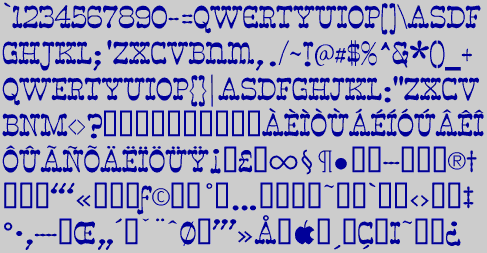
I like doing typefaces in the spirit of the 19th century. Perhaps this inclination indicates that I am out of touch with the 20th century. If I am, that may not be altogether bad. Though fonts of this sort are often associated with the "Old West" in the United States, they were in common use in the 19th century.
SpicandSpan is a caps-only font inspired by the blocky "Old-West" fonts, which have oversized serifs, but in this one the serifs are not blocky but are round. RoundUp is a further development of this face.